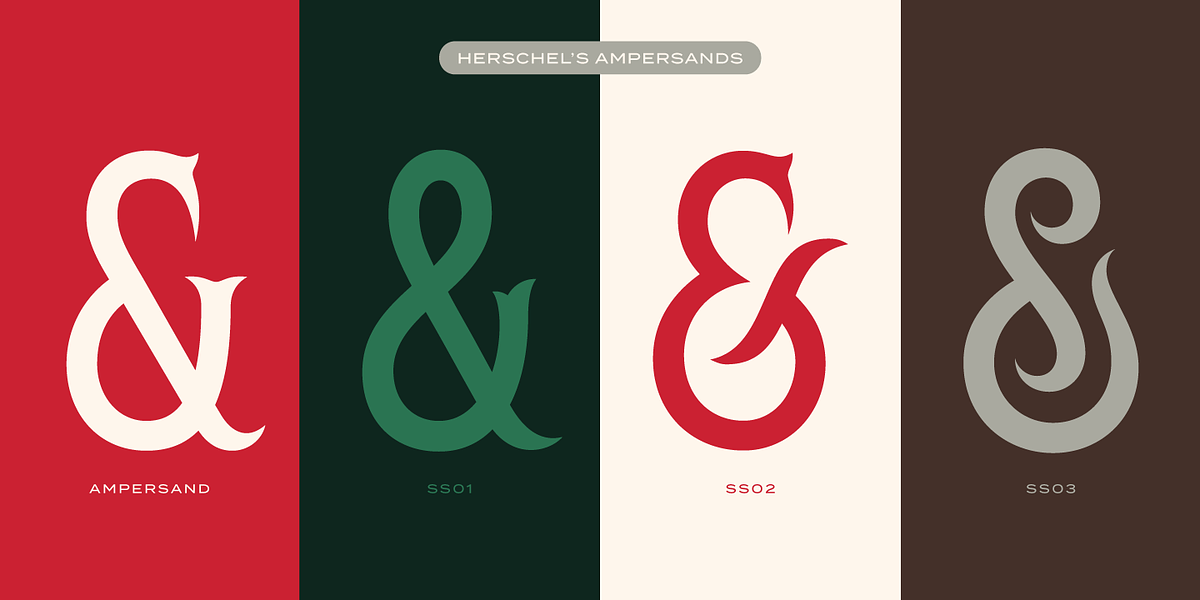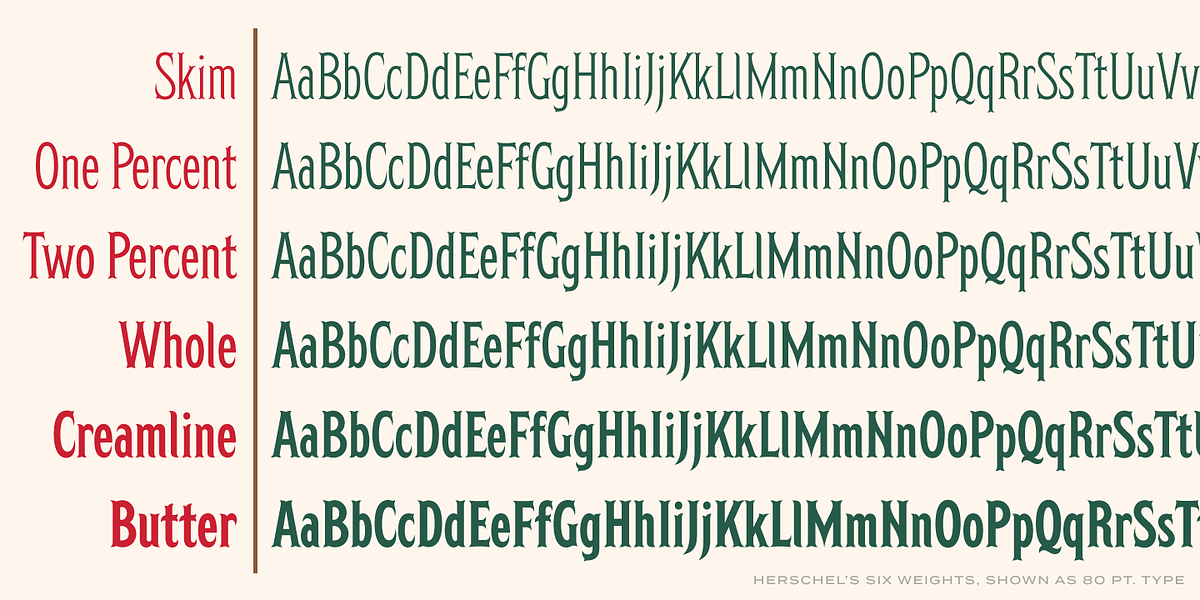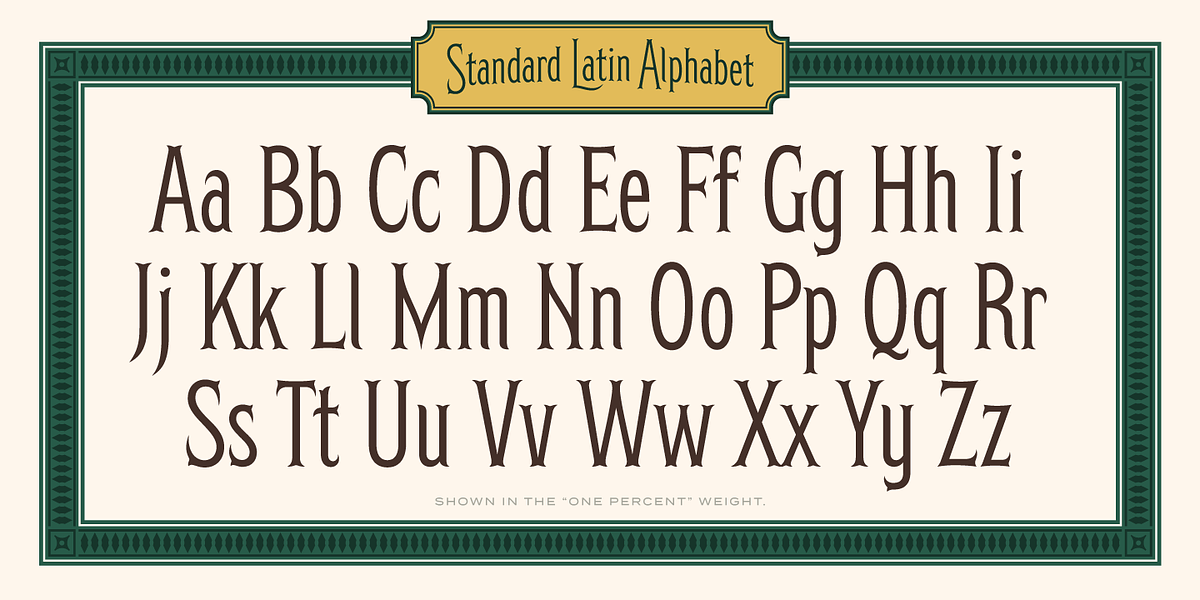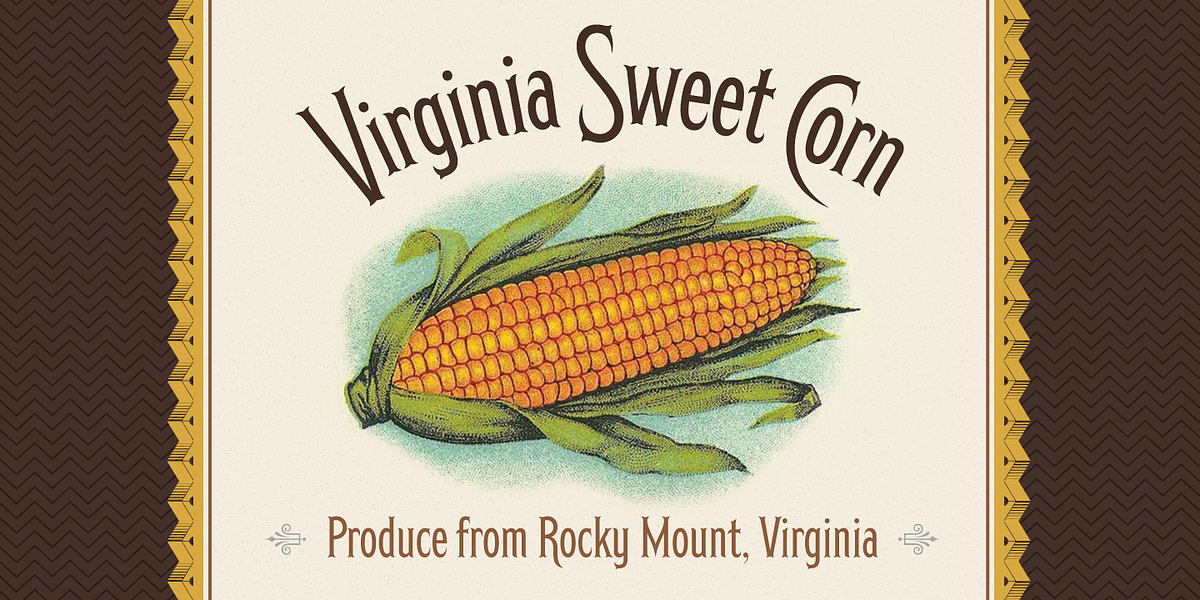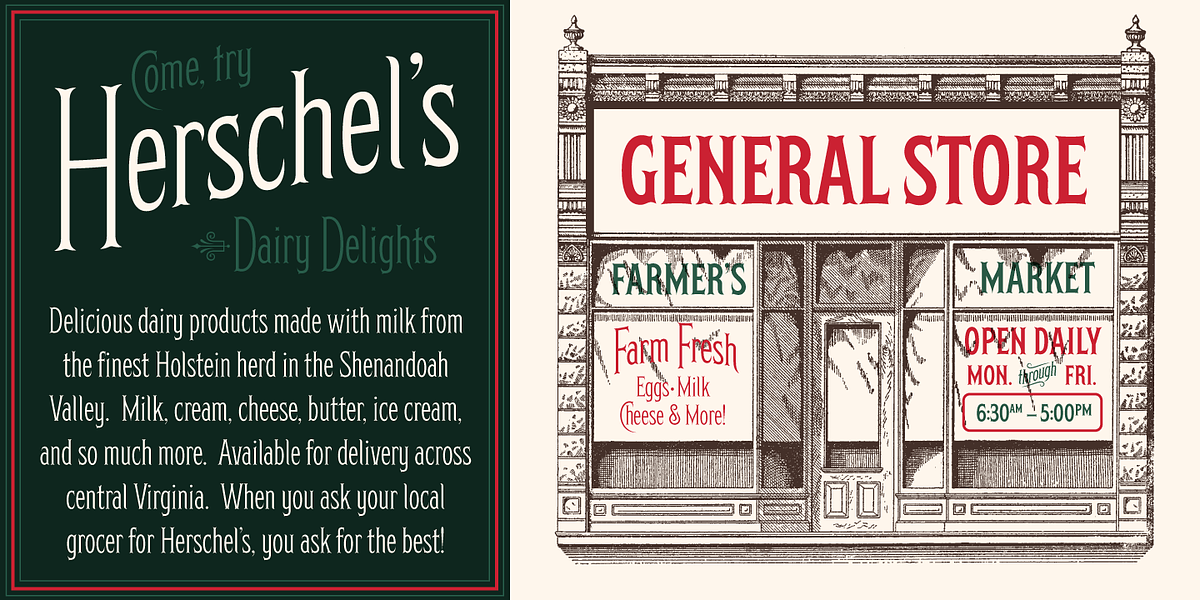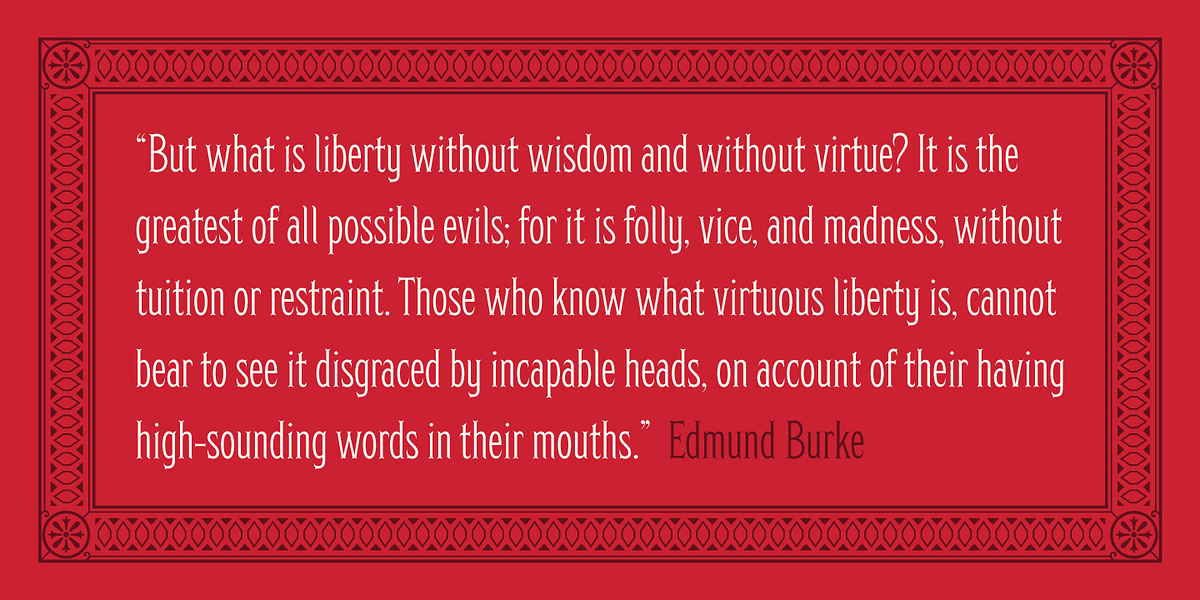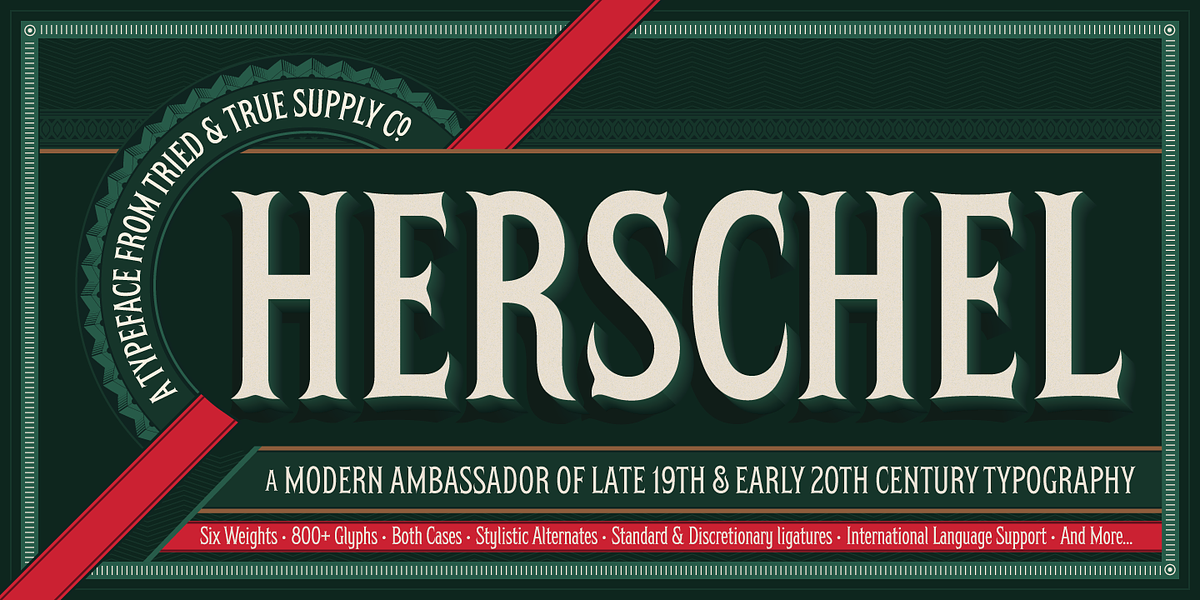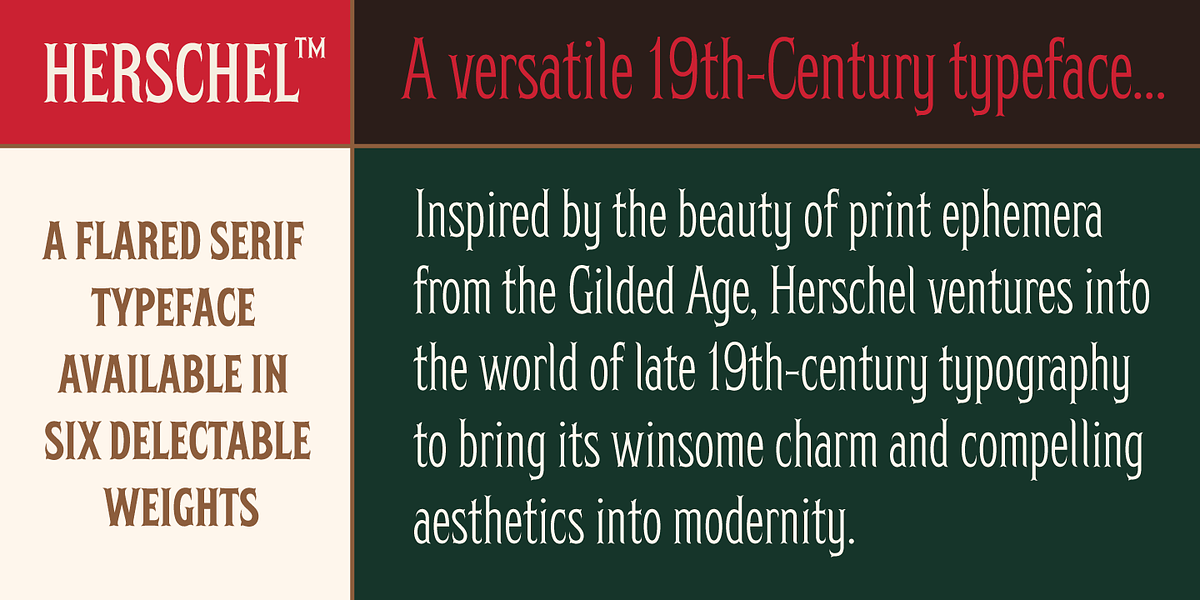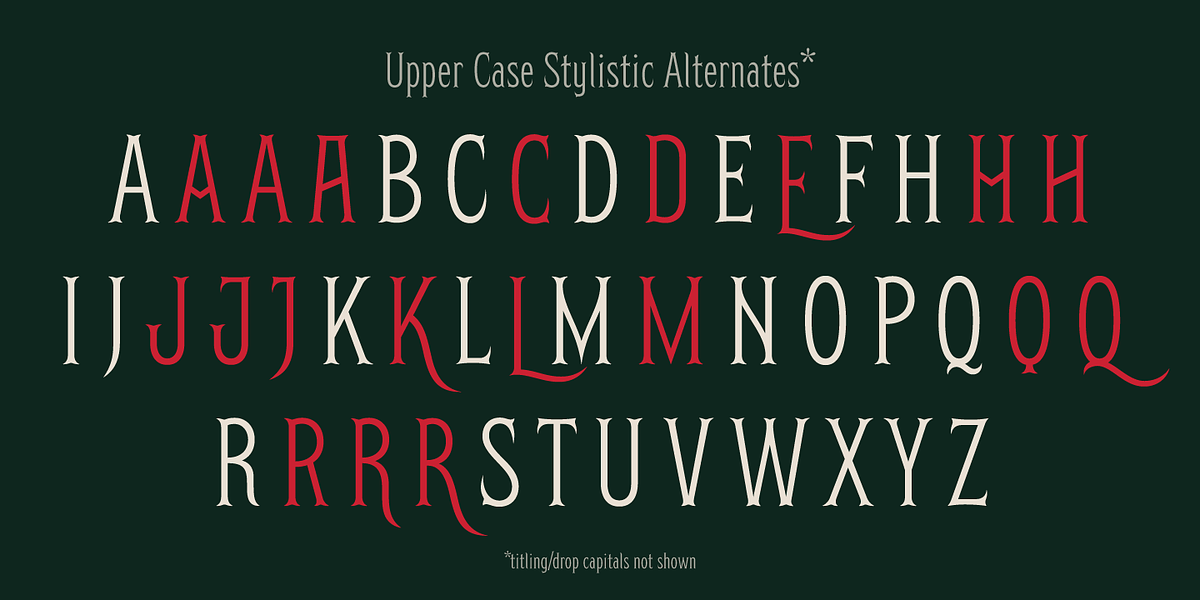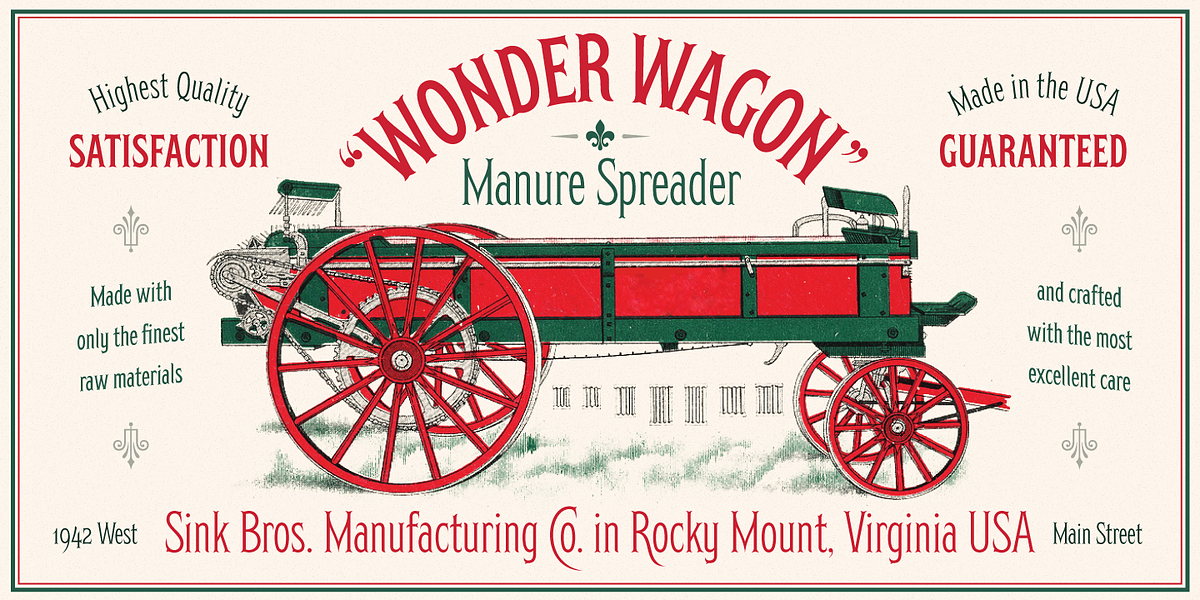
Herschel
Herschel is a flared serif typeface designed by Brian Brubaker. It draws inspiration from the typography of the late 19th century, specifically the Gilded Age. The font features distinct flared and gently bifurcated serifs, giving it a charming and elegant aesthetic. Herschel is well-suited for display applications like headlines and posters but can also be used in other contexts where a unique character is desired. It comes in six weights: Skim, One Percent, Two Percent, Whole, Creamline, and Butter.